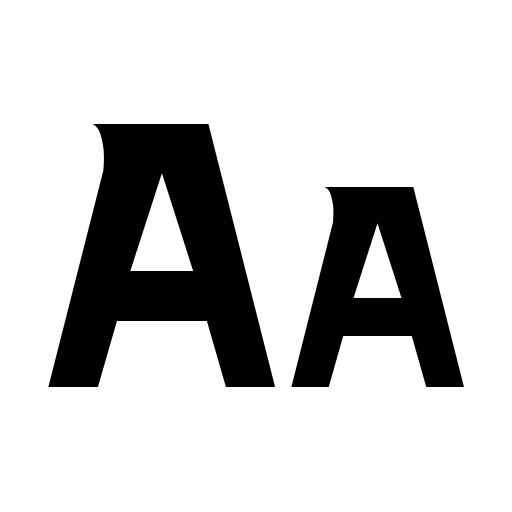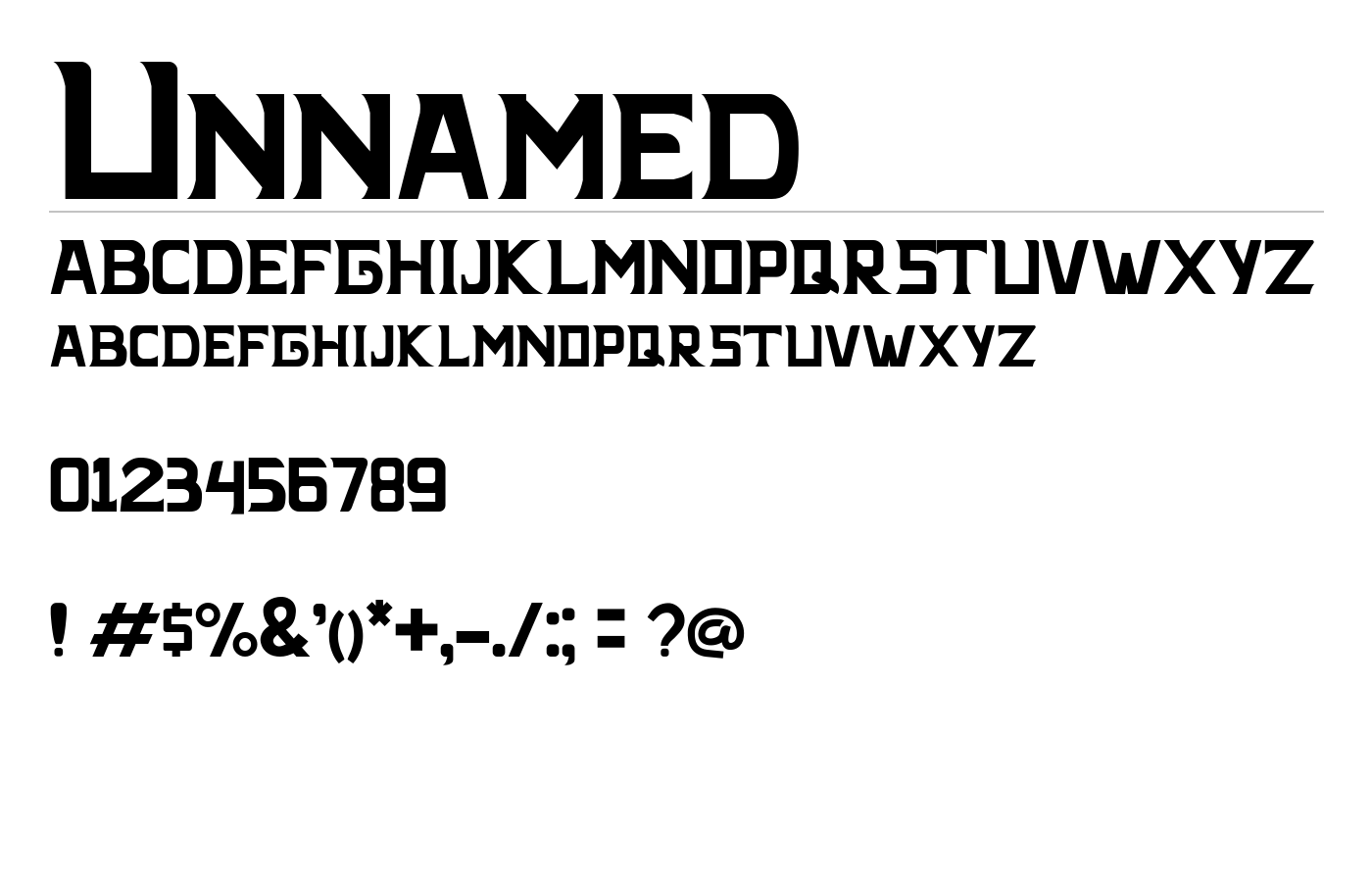
This bold, geometric sans serif font features sharp angles and strong vertical lines, giving it a modern and slightly futuristic feel. Its condensed width and high contrast between thick and thin strokes make it ideal for impactful headlines, branding, and display use where a distinct, edgy personality is desired. Perfect for tech, gaming, or urban-themed designs, this font stands out with its unique letter shapes and confident presence.